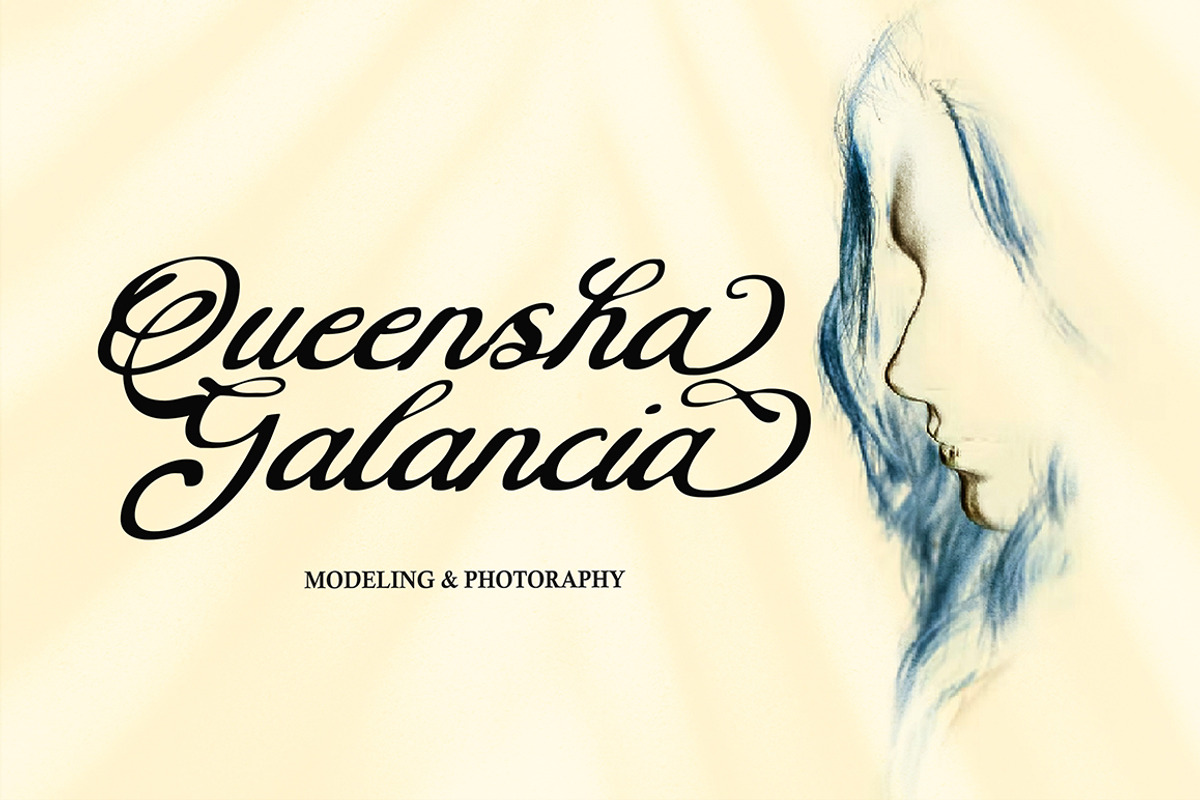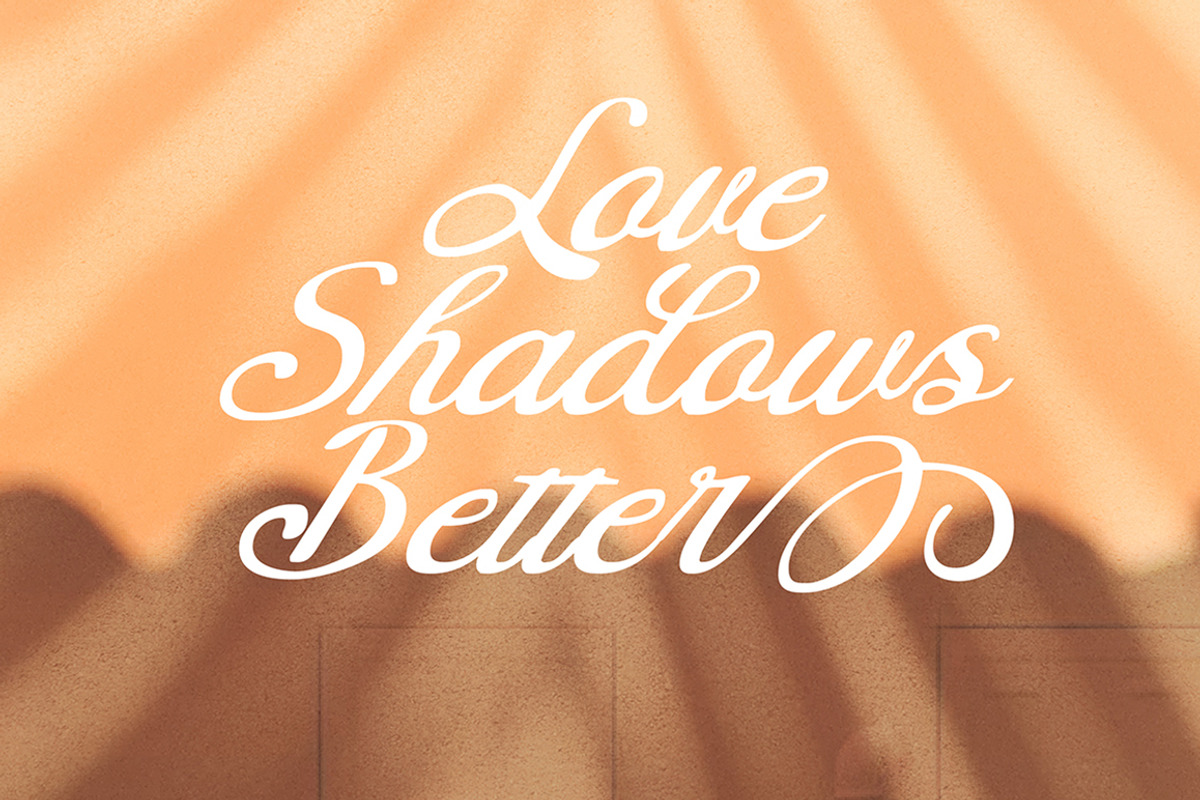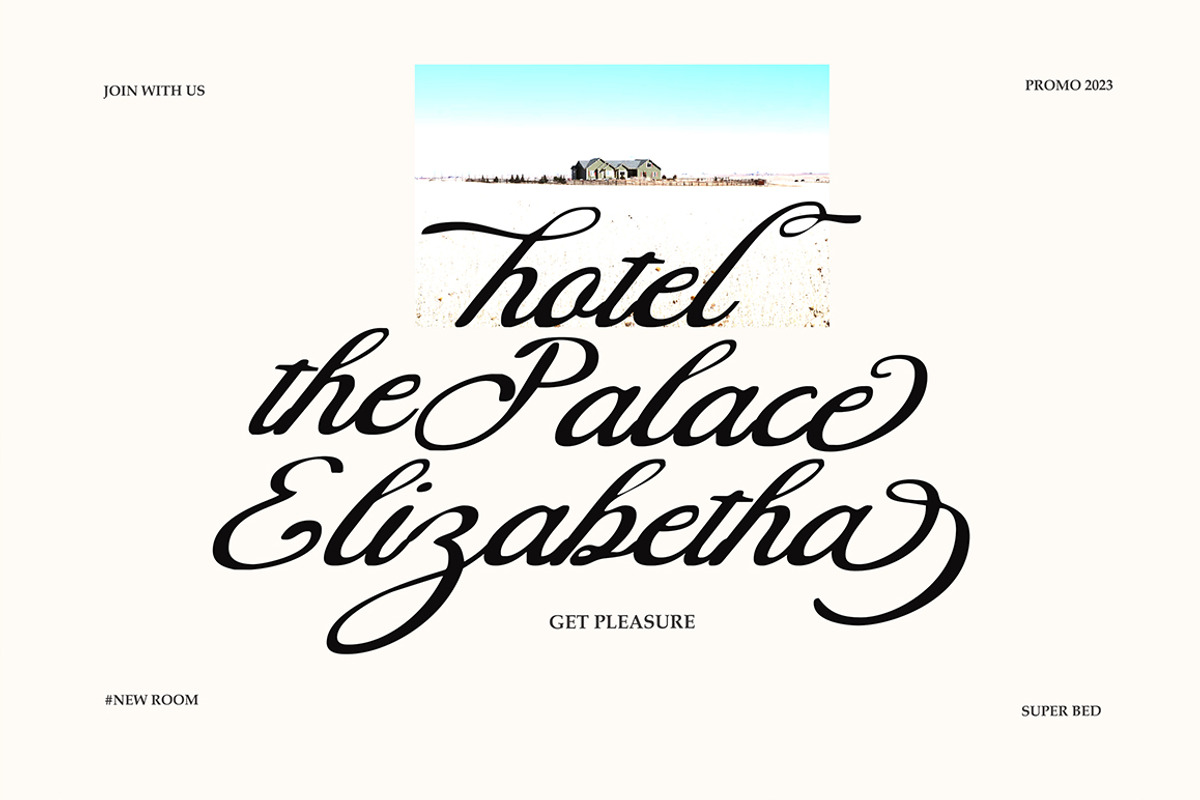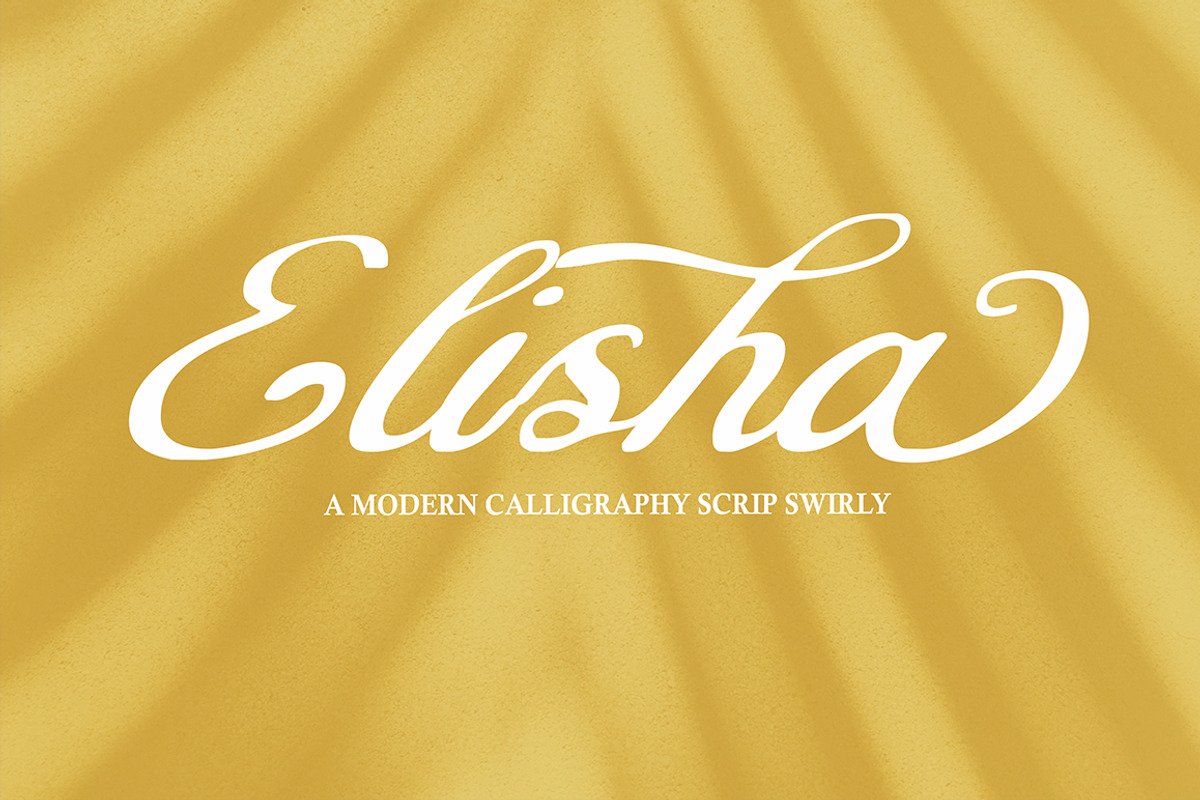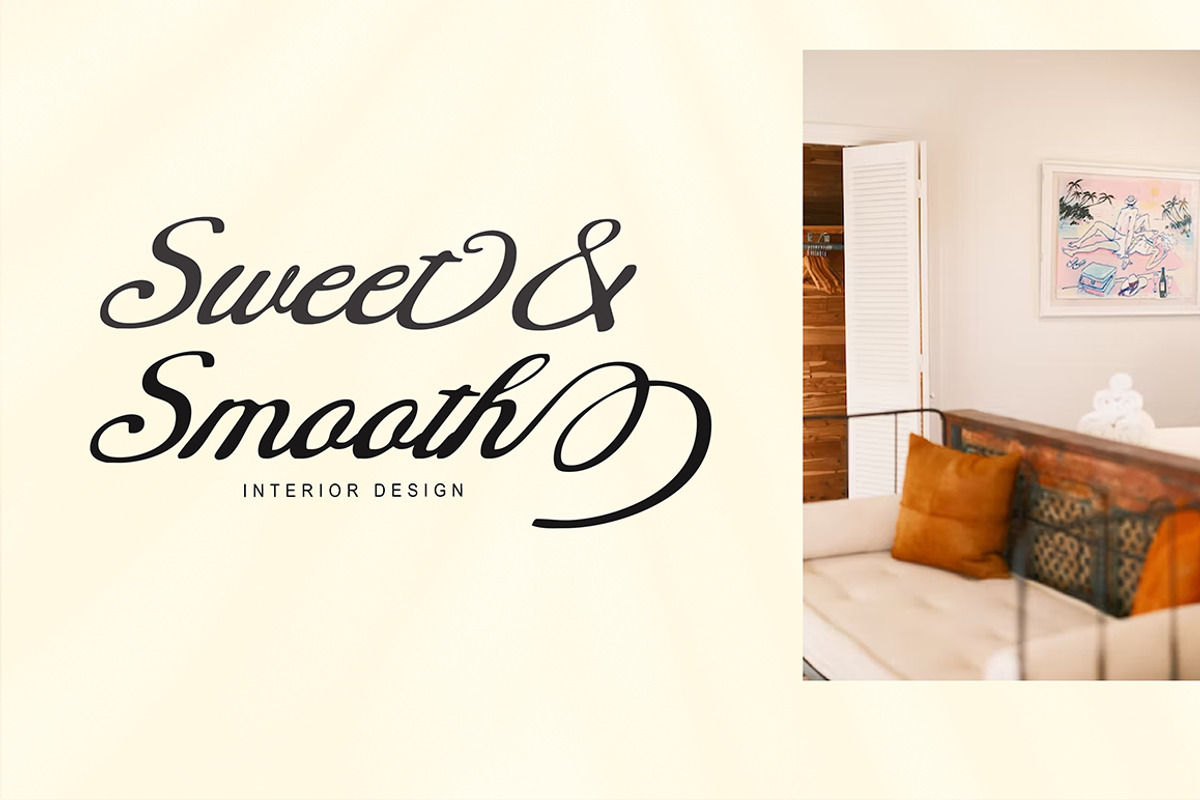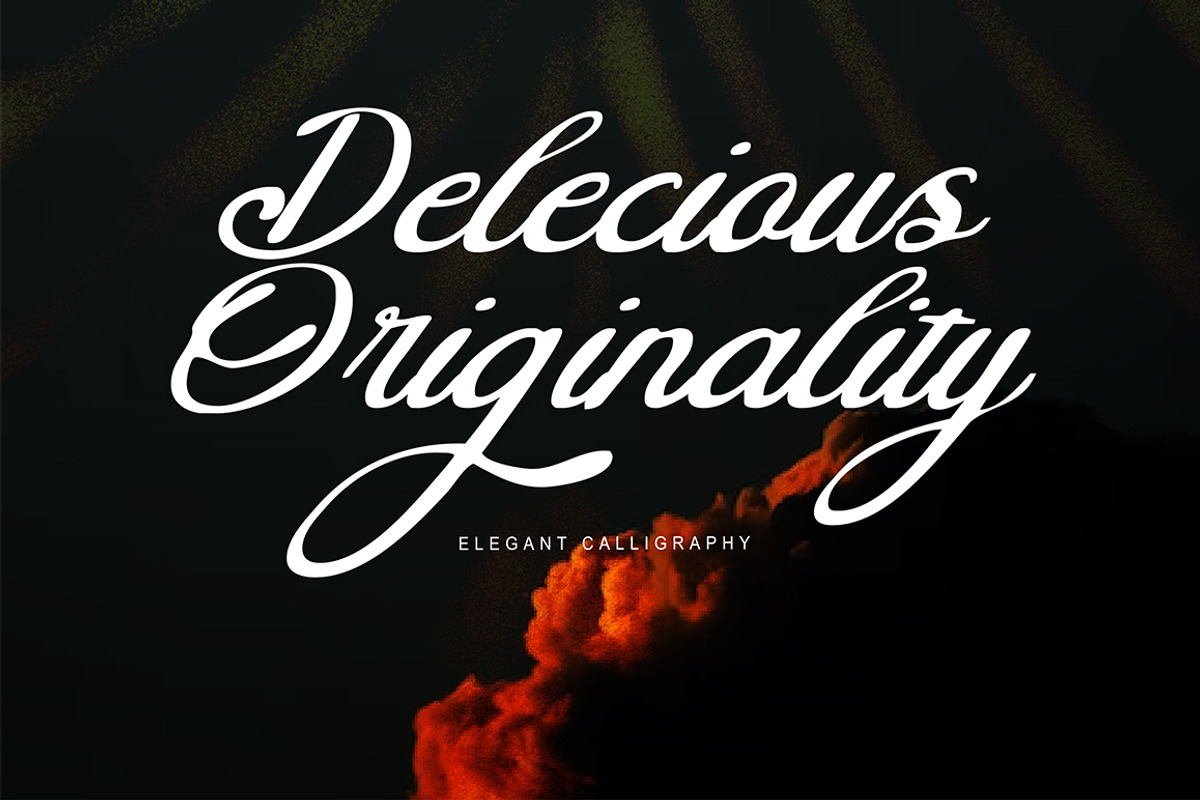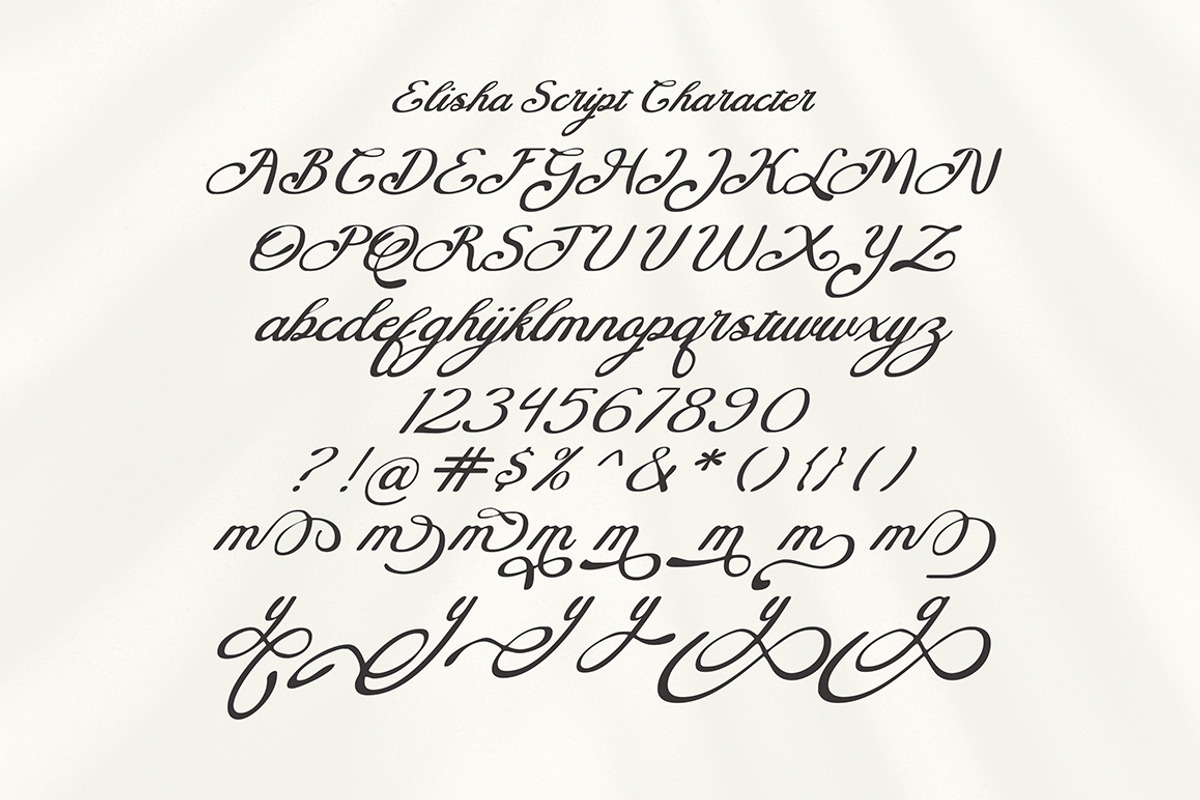
Elisha Script
The Elisha Script font style comes with great character. Ideal for logos, name tags, handwritten quotes, product packaging, merchandise, social media and greeting cards. It contains a complete set of lowercase and uppercase letters, a wide variety of punctuation marks, numbers, and supports multi-language. It is also easy for you to access this font because I have provided PUA unicode (font-specific code), with many alternative characters. This package is fully accessible to craftsmen or designers.
Elisha Script also provides several binding and style alternatives for lowercase characters, accessible in the Adobe Illustrator Glyphs panel, or under Stylistic Alternates in the Adobe Photoshop OpenType panel.